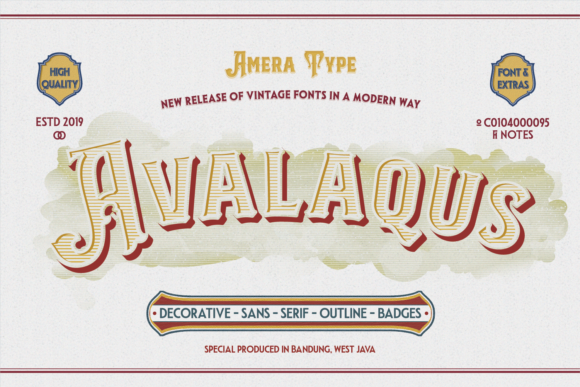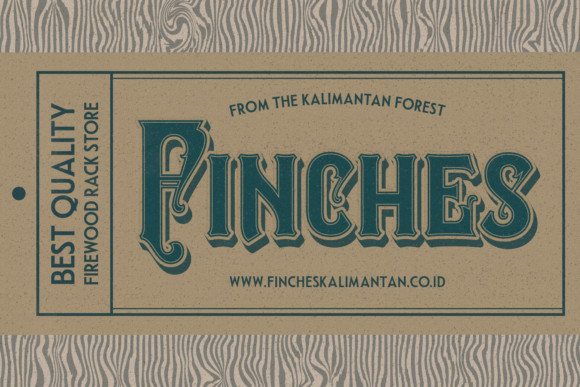
Avalaqus Font
Avalaqus is a daring and retro styled display font. This font reads as bold, confident, and dynamic and can add tons of nostalgic character to your designs.